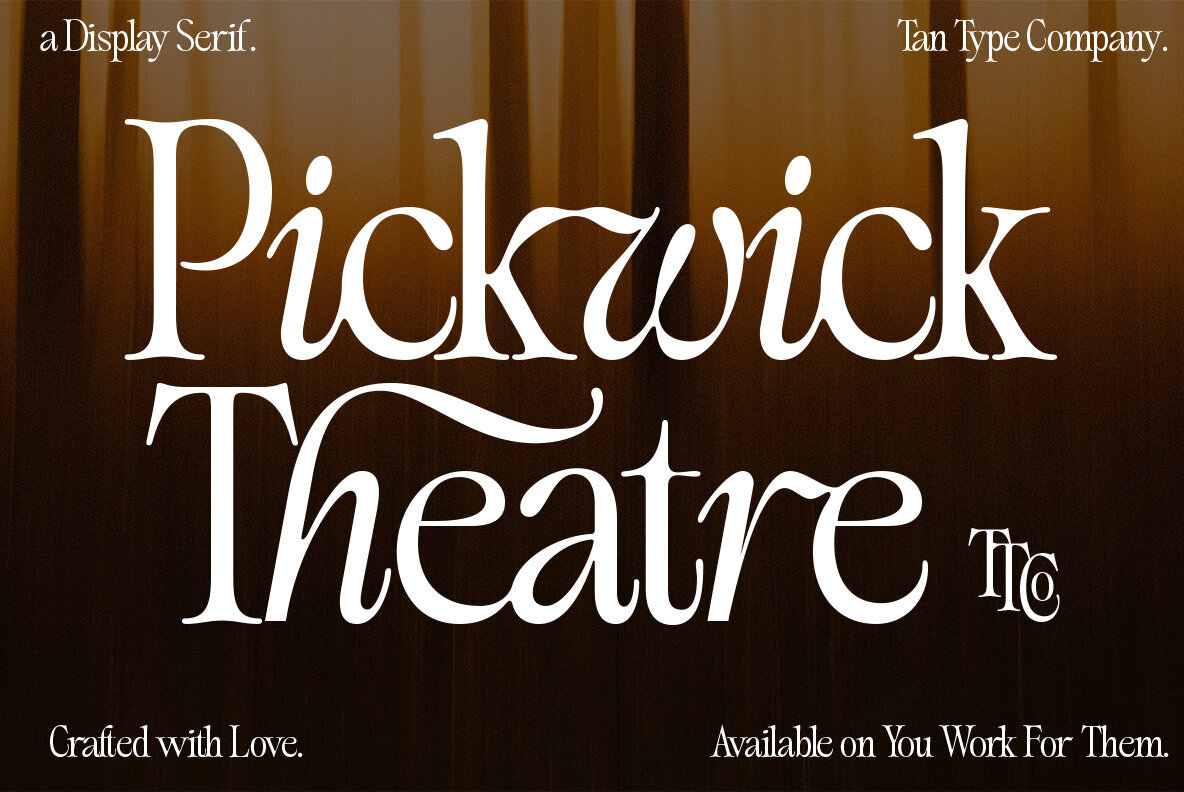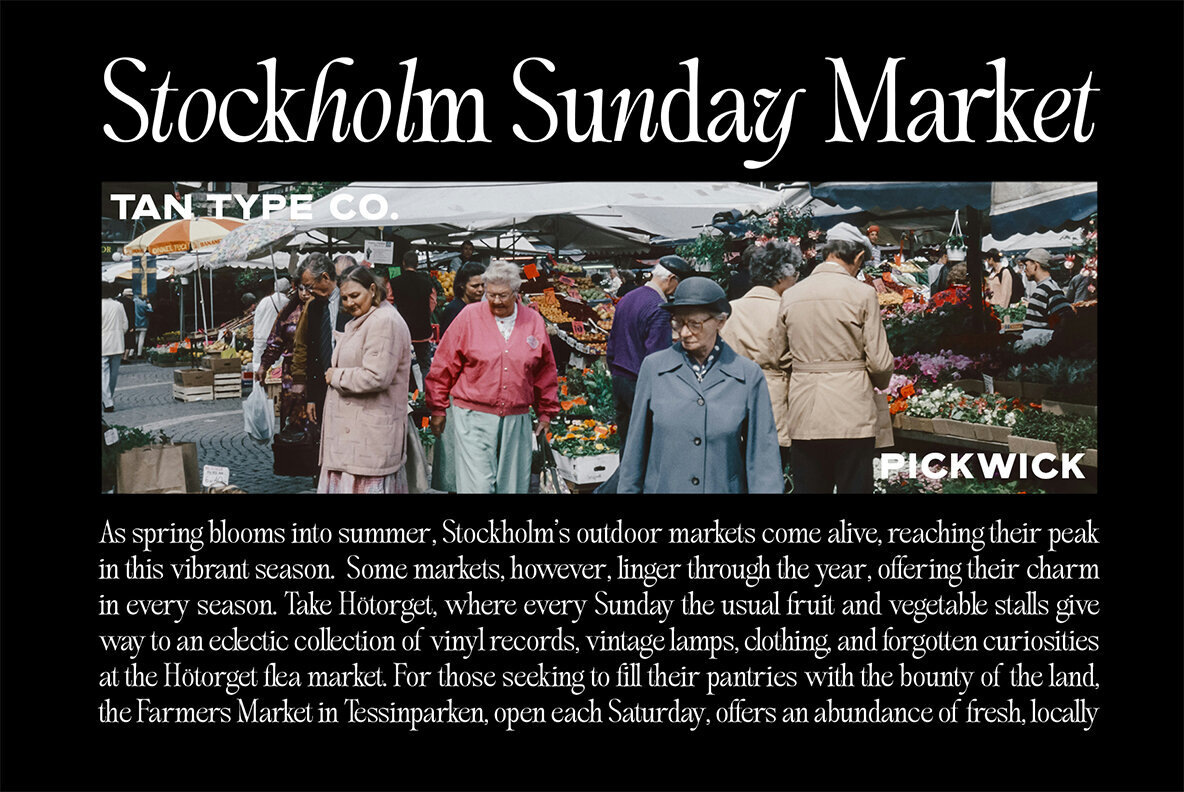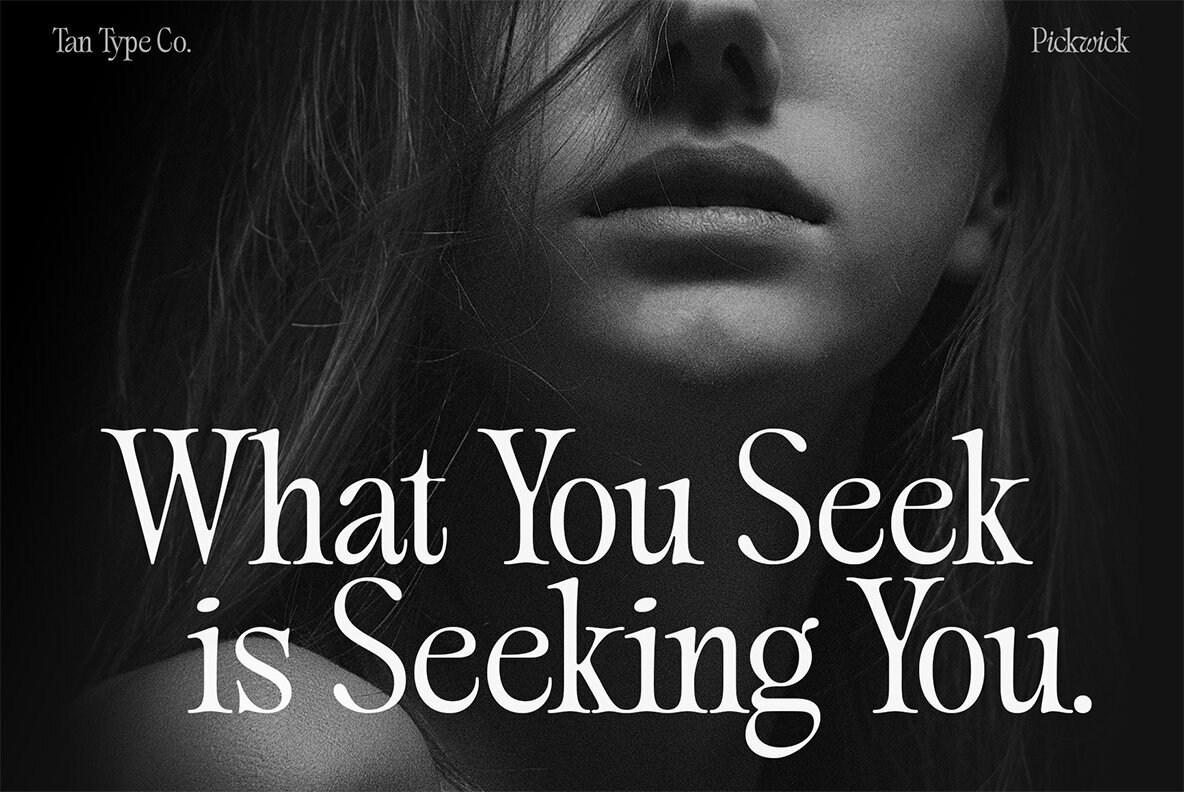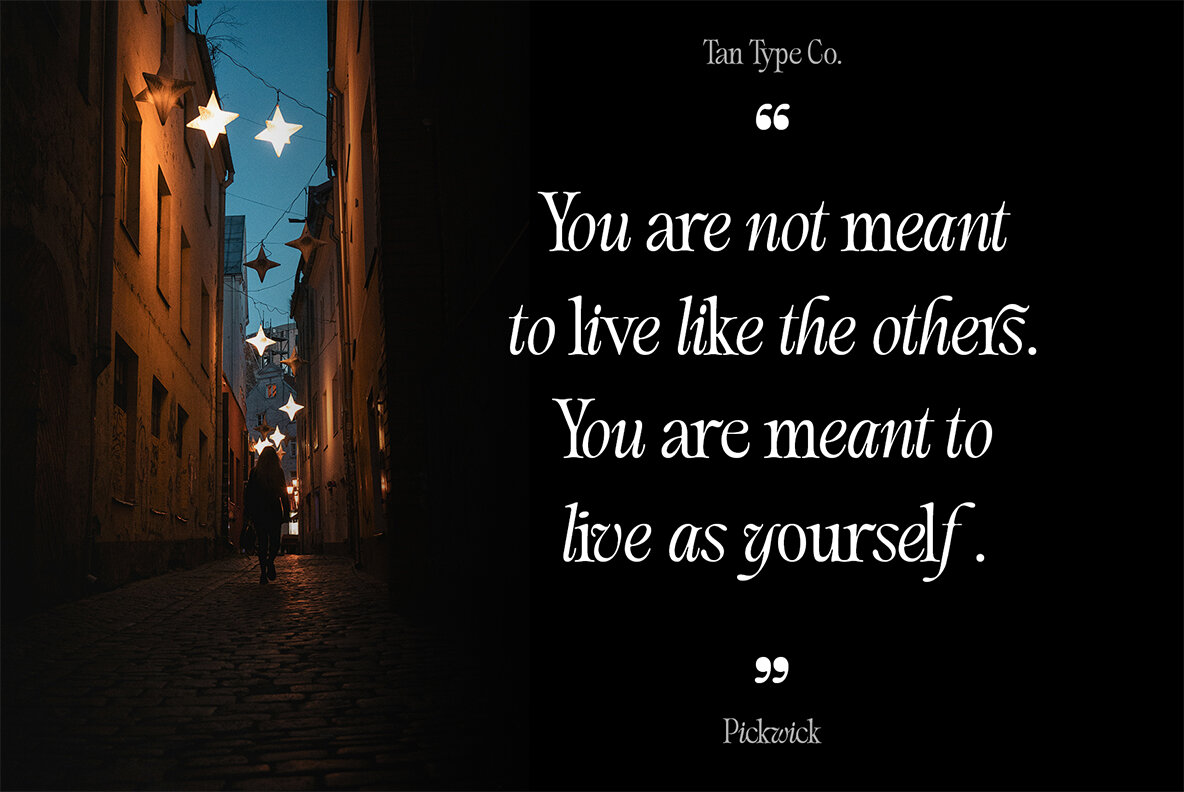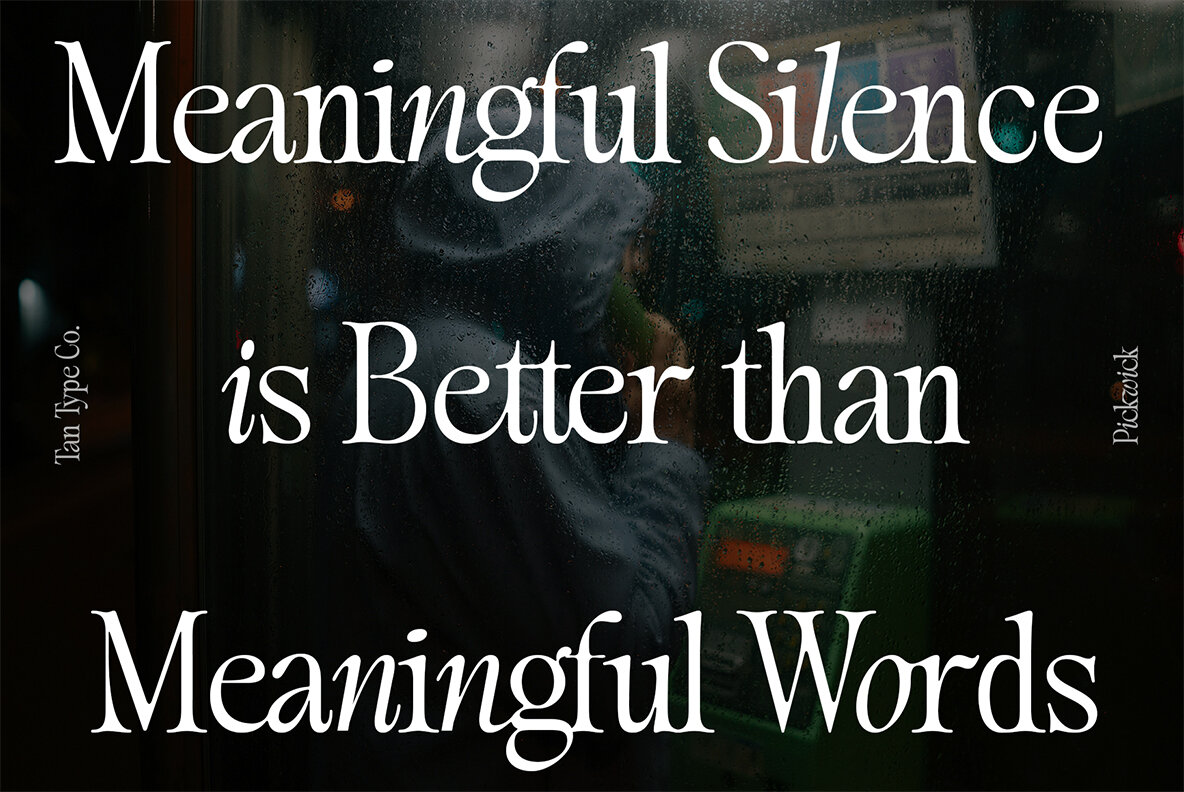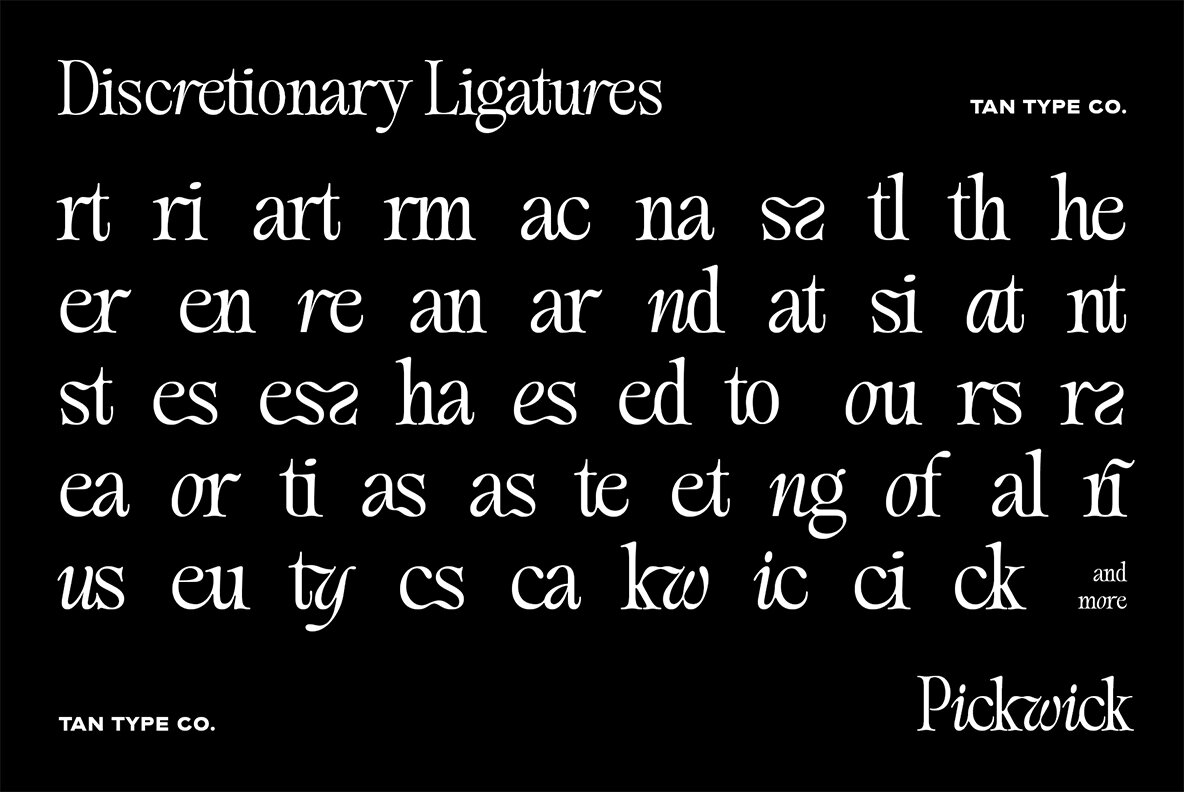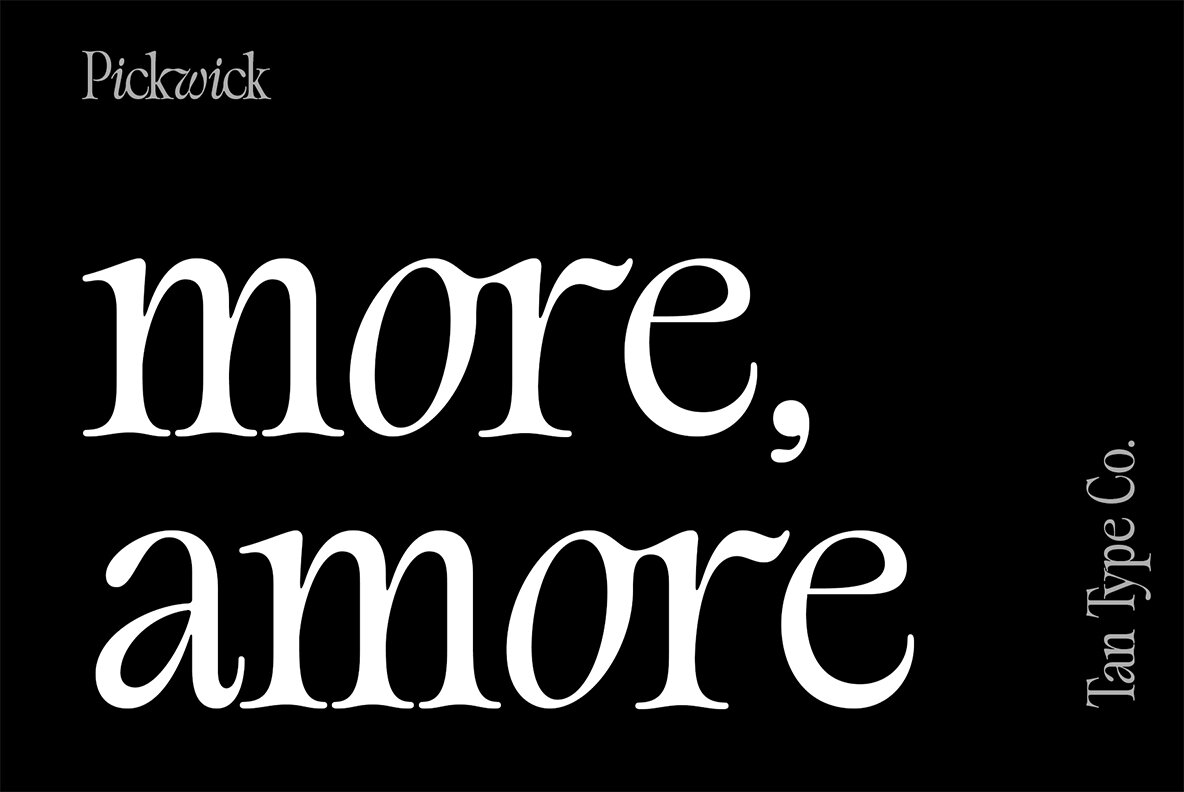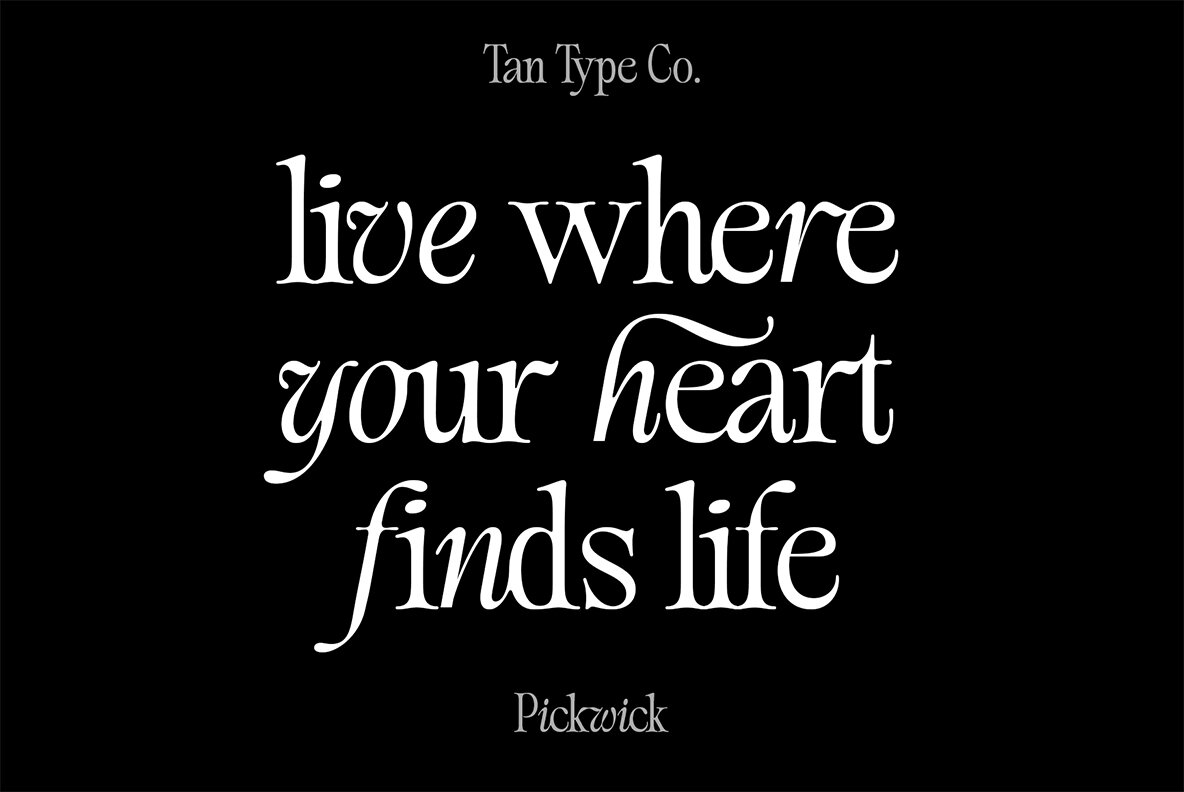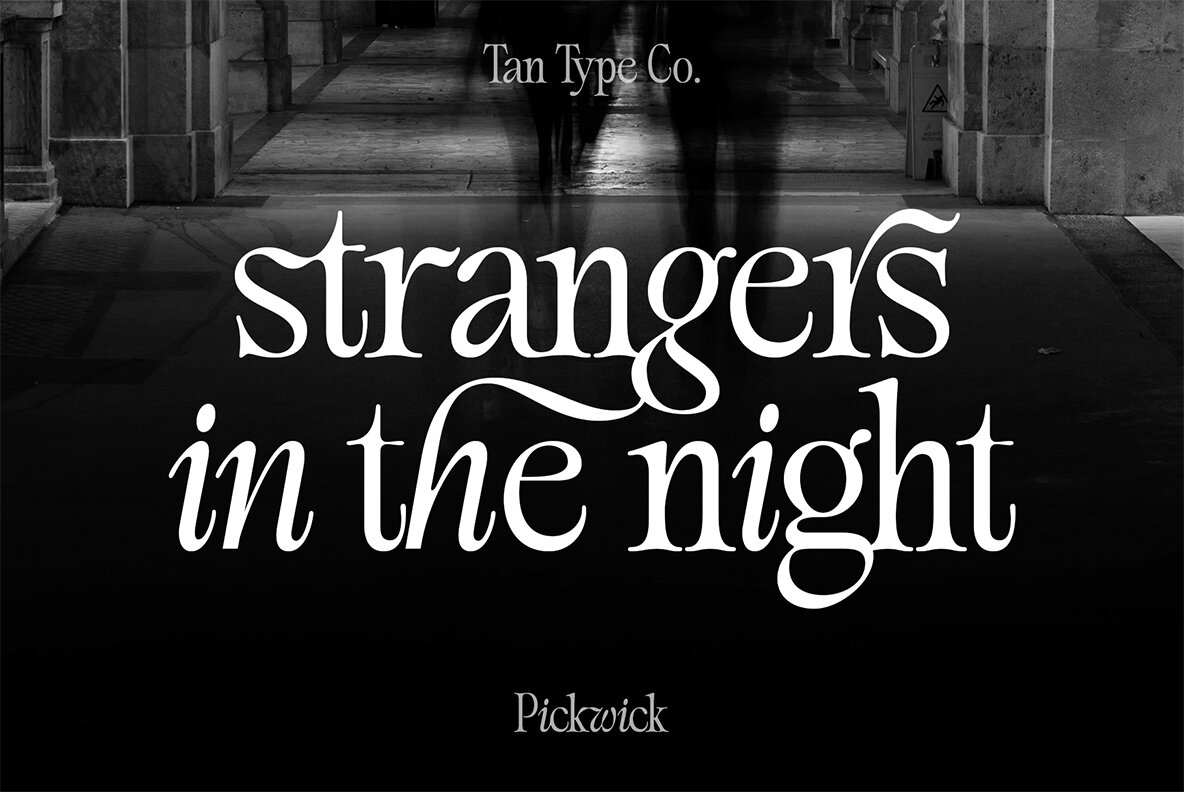
Tan Pickwick Font
TAN PICKWICK Regular
TAN-PICKWICK is an exquisite serif font that artfully merges classic elegance with a modern flair. Inspired by traditional letterforms, it boasts elongated serifs and refined curves, while subtle contemporary elements, like playful flourishes and unique angularities, add a delightful twist. This harmonious blend of classic and innovative design makes Pickwick ideal for projects that exude prestige and a fresh, distinct edge. Whether you're creating branding, editorial layouts, or invitations, Pickwick delivers a sense of luxury and individuality. Its standout style is both refined and contemporary, ensuring your designs capture attention and convey sophistication.Tan Pickwick by TanType Co.